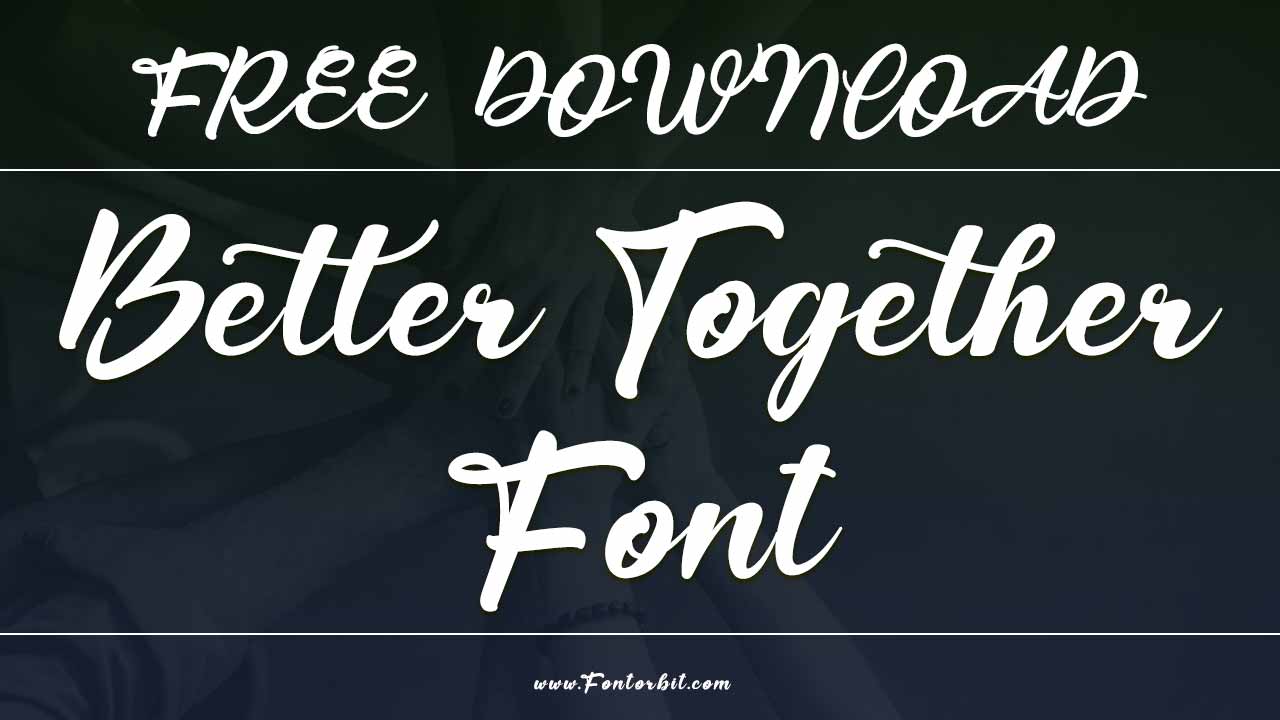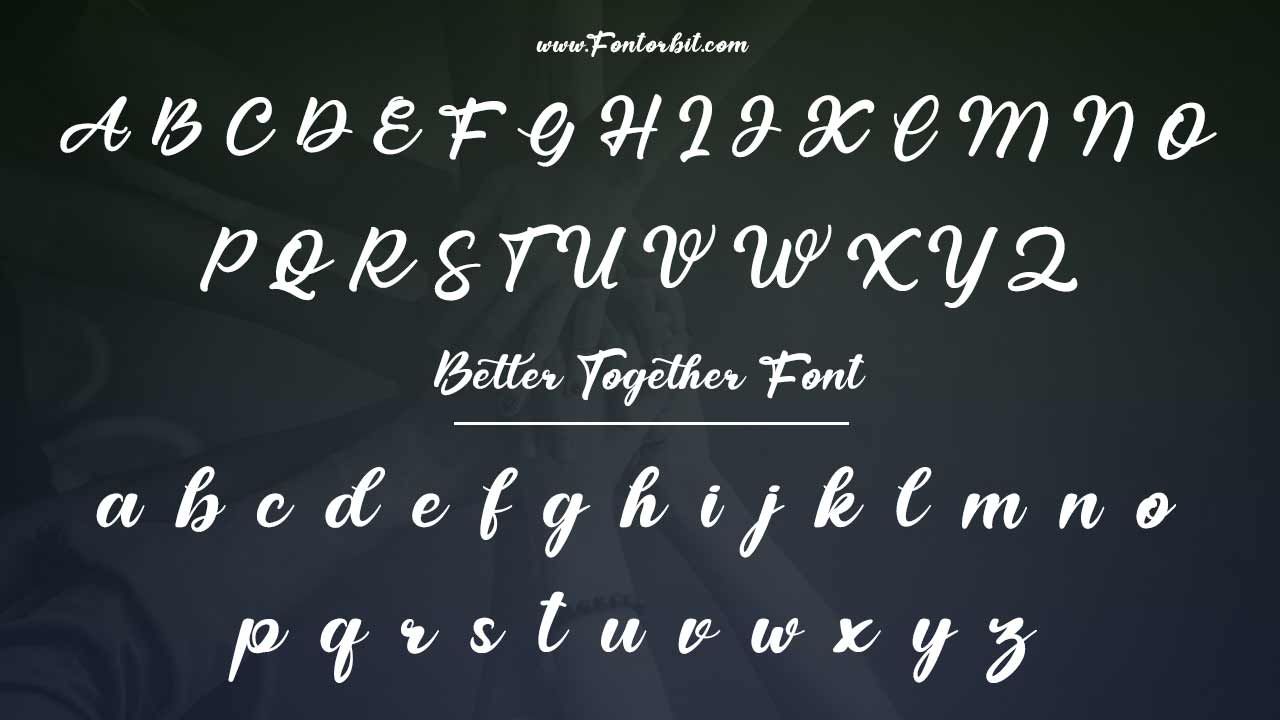
Better Together font is an elegant and versatile script font that can enhance any design project. Designed by Graphix Line Studio and released on January 8, 2023, this brush font perfectly balances charm and readability. It has quickly become popular among designers for its graceful strokes, making it an excellent choice for everything from wedding invitations to website headers. Whether you’re designing logos, custom prints, or promotional material, Better Together delivers a unique, handwritten touch with modern appeal.
Key Features Of Better Together Font
Better Together is part of the Better Together font family, offering a stylish and fluid script with a calligraphy-like feel. Below are the essential details about this font:
- Font Name: Better Together
- Style: Script, Brush
- Designer: Graphix Line Studio
This beautiful handwritten font offers a smooth flow, making it ideal for adding a personalized touch to designs. It’s especially popular for creating wedding fonts or signature fonts.
Ideal Uses For Better Together Font
The Better Together script font is versatile enough for multiple creative projects. Its smooth curves make it suitable for formal and casual uses, whether for an elegant wedding invitation or a modern, stylish logo. Below are some of the best applications for this font:
- Websites: Add personality and elegance to your website’s text. Pairing Better Together with sans serif fonts like Open Sans creates a striking modern look.
- Print Designs: Whether you’re creating brochures, posters, or business cards, this font can bring an extra touch of flair to your print materials.
- Invitations: Perfect for wedding and event invitations, Better Together adds sophistication and a personalized, handwritten touch.
- Product Labels: Use this font to create eye-catching product packaging and pair it with serif fonts to achieve a classy, refined style.
Why Better Together Works Well With Other Fonts
One of the best things about Better Together is its compatibility with other fonts. Whether you pair it with sans serif fonts for a modern look or go for a more traditional style with serif fonts, there’s endless potential for creative combinations. Here are a few ideas on how to mix and match:
Best Font Pairings For Better Together
- With Sans Serif Fonts: Combine Better Together with clean, modern fonts like Open Sans to create a balanced, eye-catching design. This contrast works especially well in web design.
- With Serif Fonts: Pair Better Together with fonts like Georgia or Times New Roman for a classic, timeless feel.
- With Typewriter Fonts: Pairing Better Together with typewriter fonts like Courier adds a vintage, retro vibe to your design.
- With Decorative Fonts: For a more ornate, whimsical feel, combine it with highly decorative fonts for a unique and stylish design.
A Font For Any Design Project
The Better Together font is not only beautiful but functional as well. It’s the perfect font for global projects, offering support for European languages. Whether you need a font for personal or professional use, Better Together adapts to a wide range of design needs.
Key Benefits:
- Multilingual Support: This font can be used globally, thanks to its wide range of characters and support for European languages.
- Perfect for Labels and Logos: Its unique look makes it a great fit for product labels, logos, and other branding materials.
Similar Fonts To Better Together
If you’re looking for alternatives or want to explore similar styles, there are several similar fonts that share Better Together’s graceful, flowing aesthetic. Here are some fonts you might want to check out:
- Mistis Font
- Great Vibes
- Pacifico
These fonts offer similar handwritten and brush-like features, allowing you to experiment with different styles.
6.Can I Use Better Together For Logo Designs?
Yes, Better Together is great for logo design. Its handwritten style adds a unique, personal touch while remaining professional. The font pairs beautifully with sans-serif or minimalist fonts. It’s perfect for industries like fashion, beauty, or lifestyle brands. Better Together’s stylish, legible look can elevate any logo design.